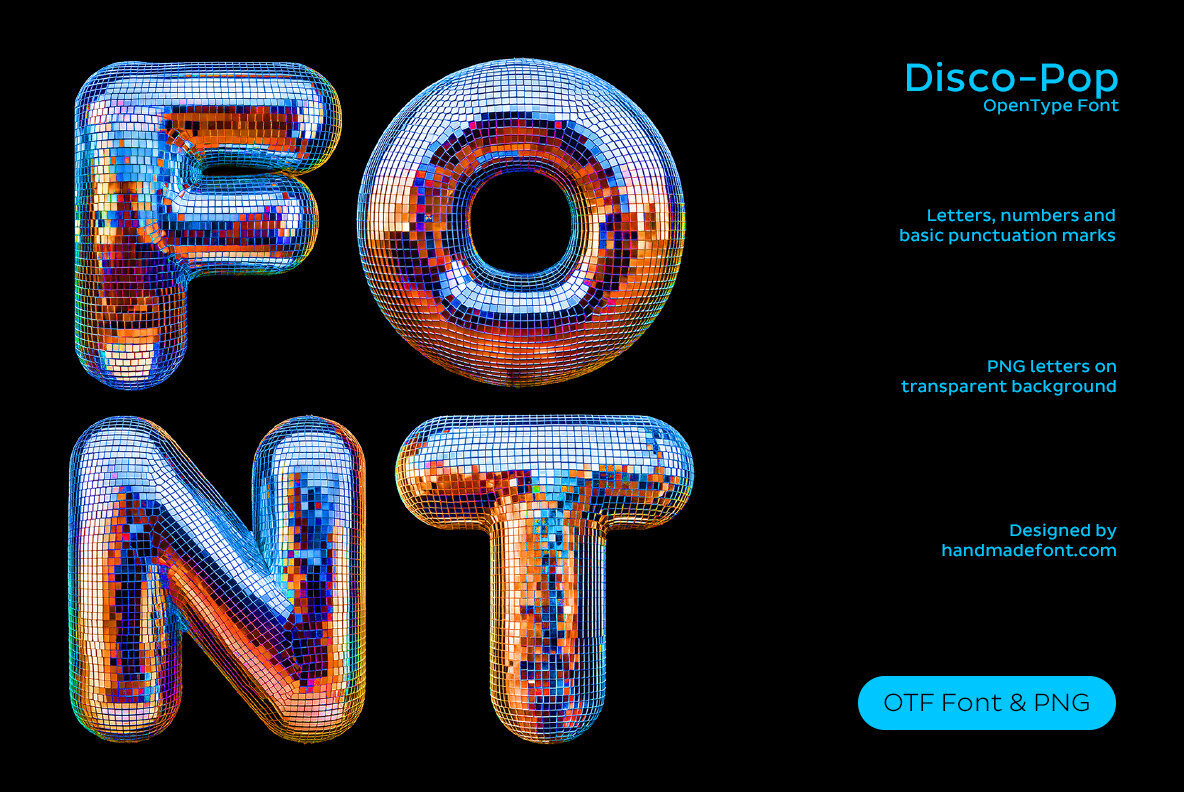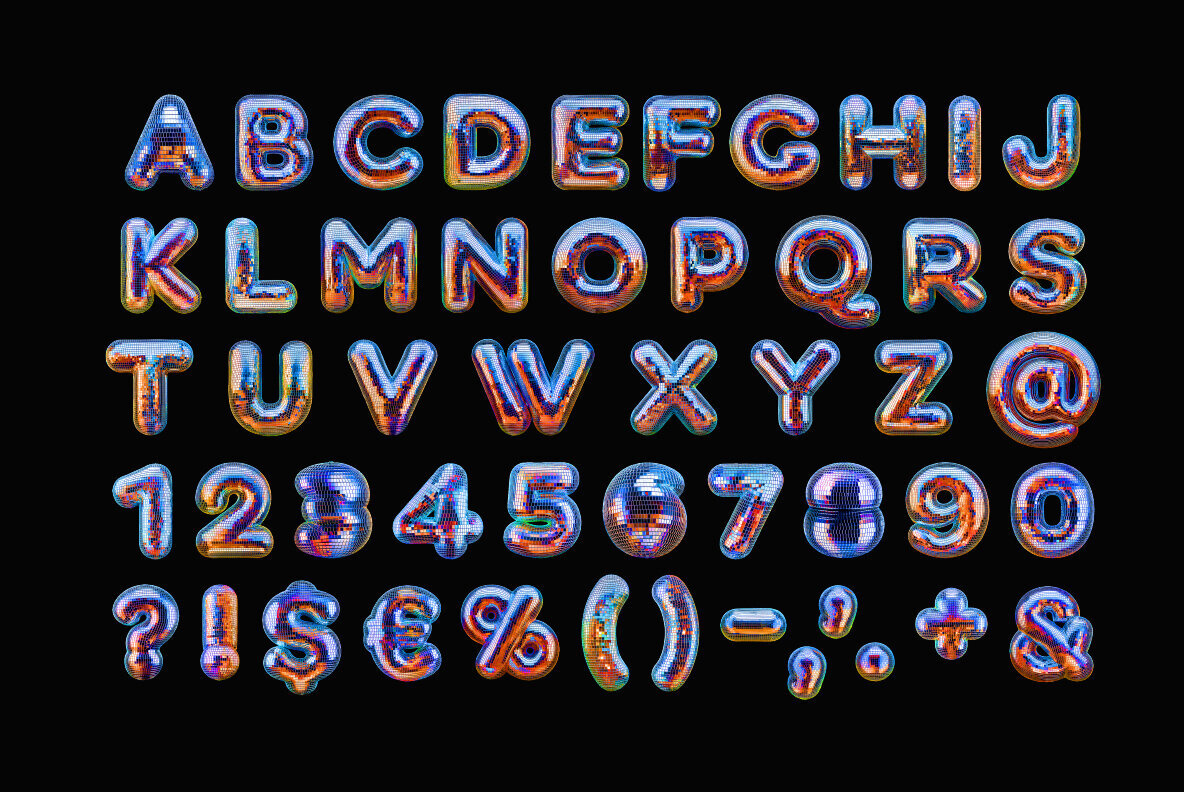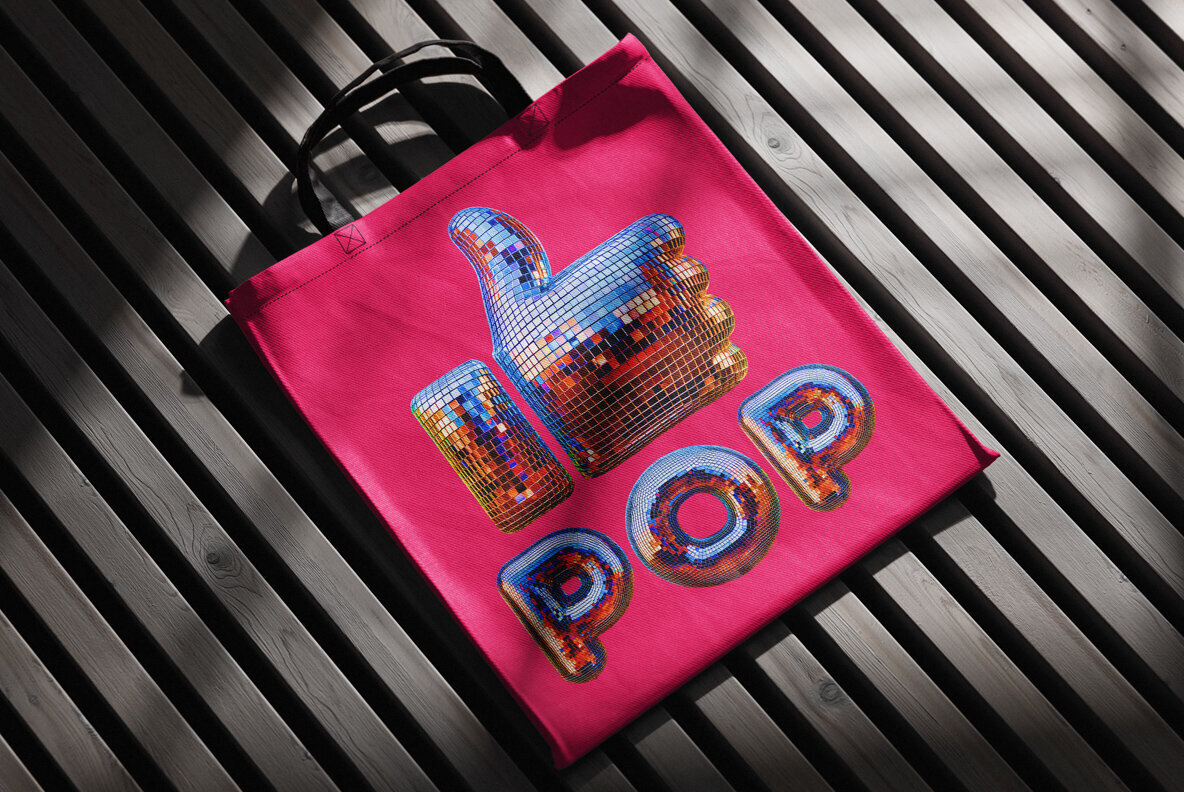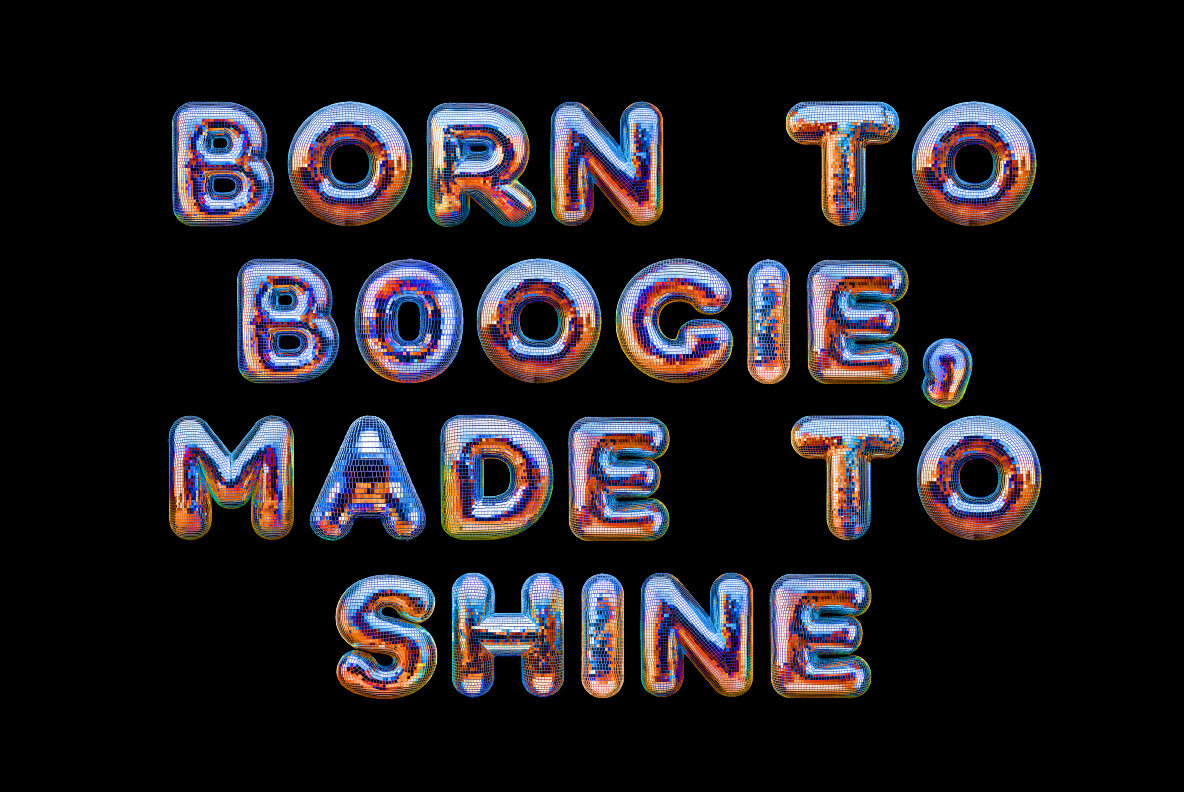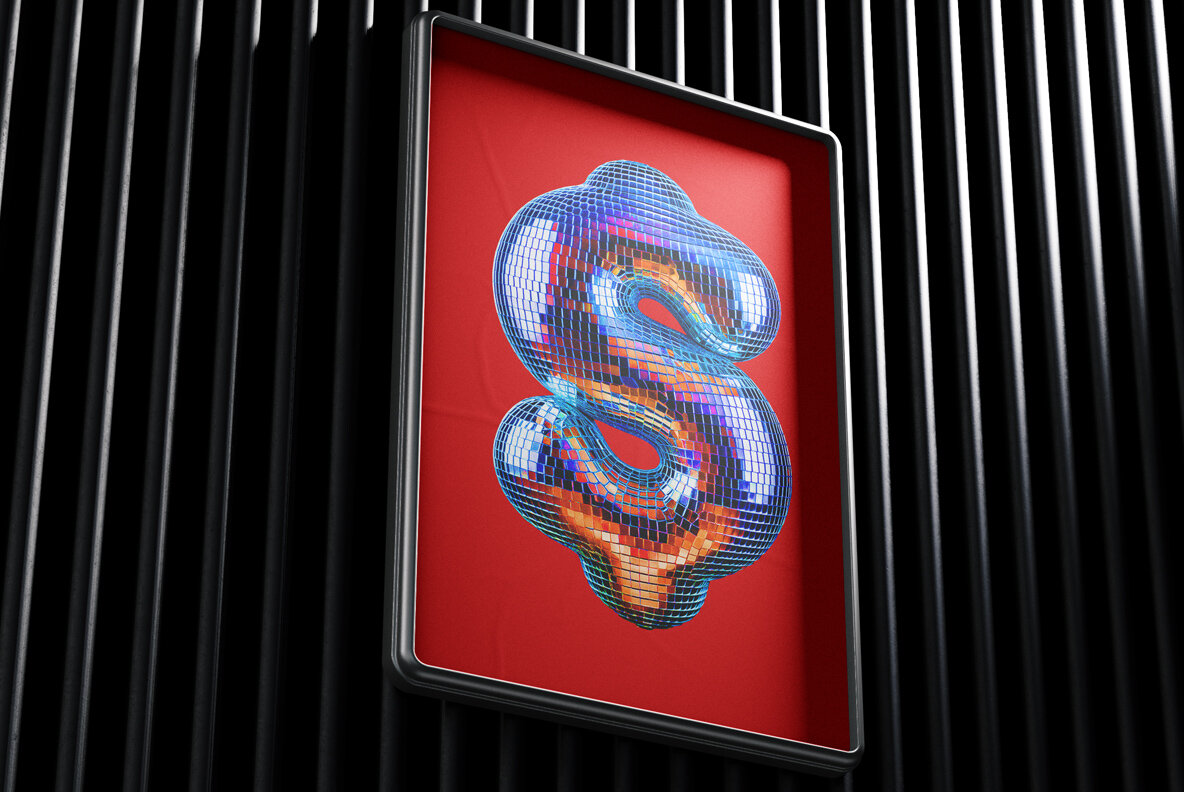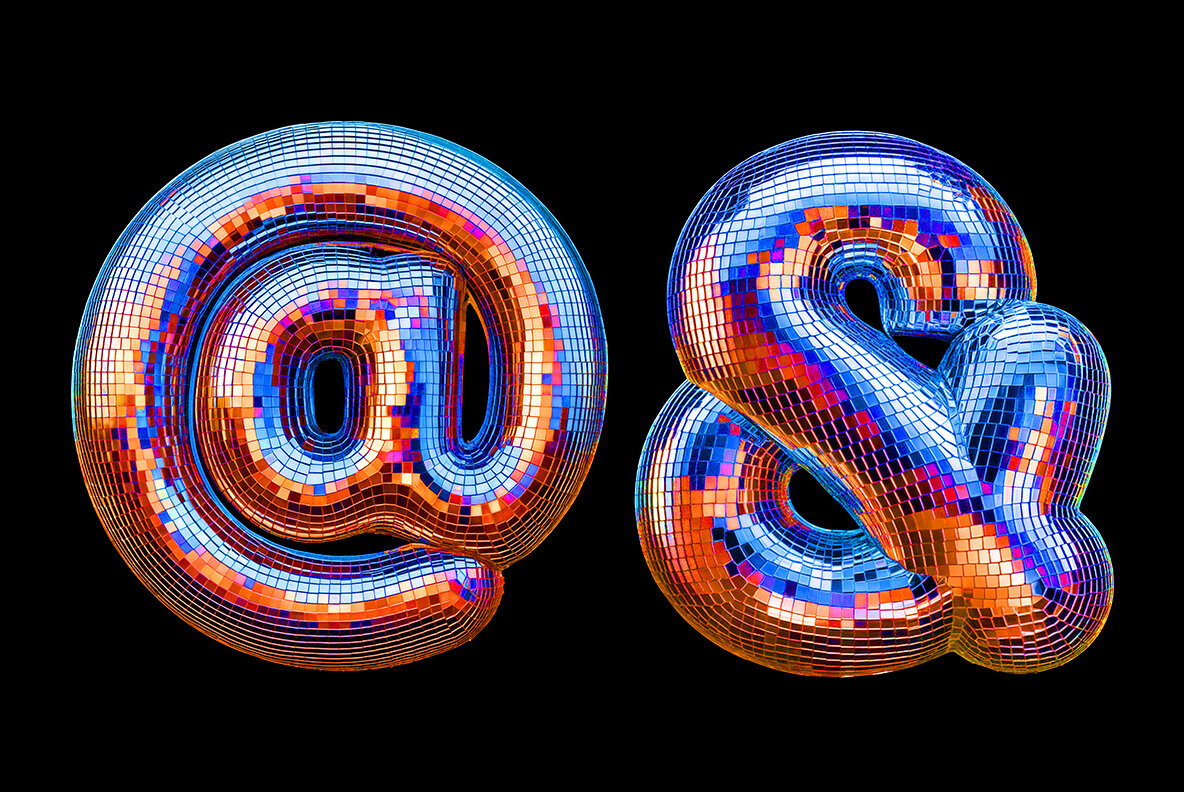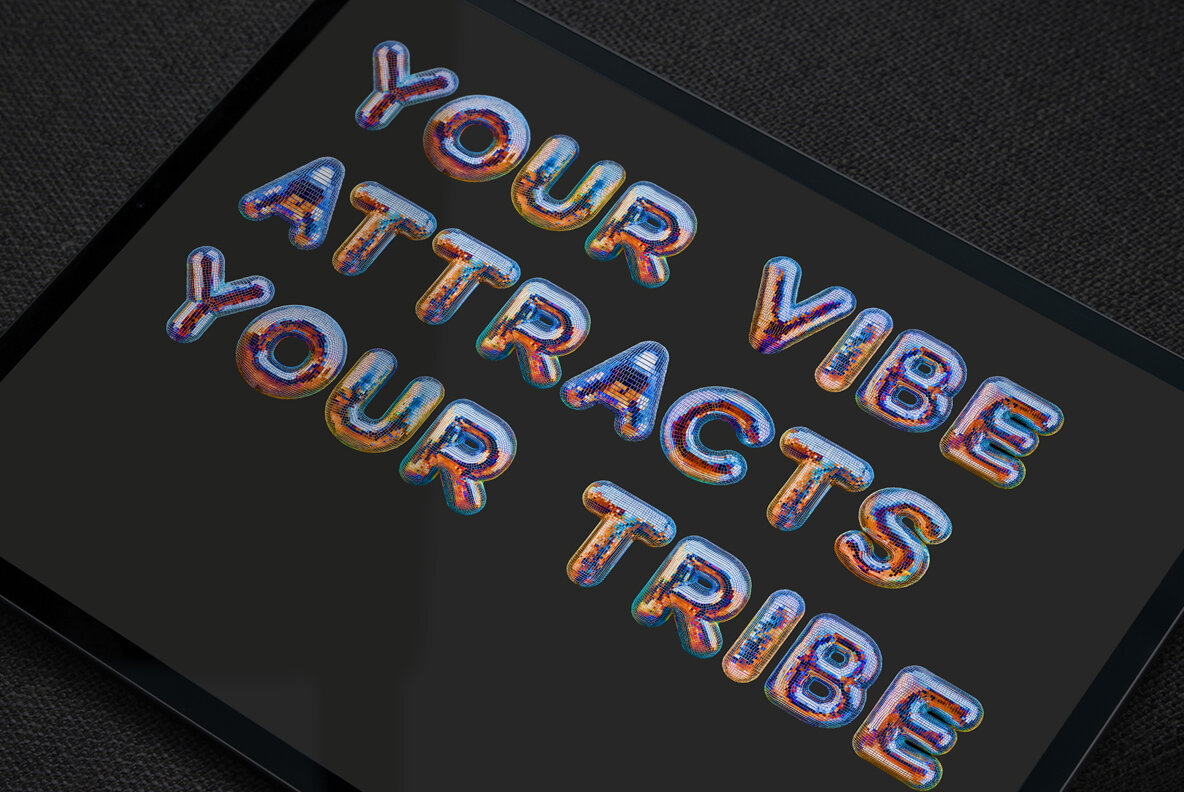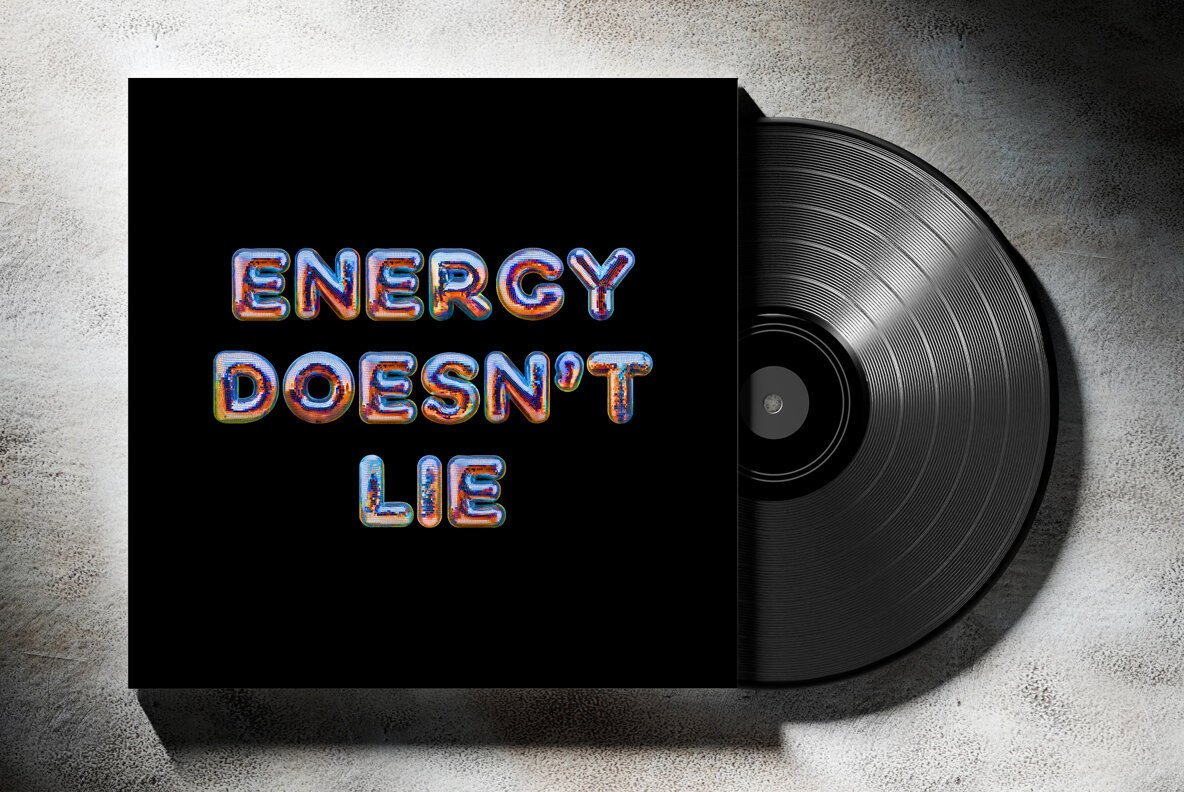
Step into the vibrant world of 1970s disco culture with the Disco Pop SVG font, a display typeface that embodies the glamour and excitement of the era. Inspired by the iconic disco ball, each letter design features reflective mosaic tiles that cast a mesmerizing dance of colors—blues, purples, and oranges—across its glossy, rounded surface. Whether you're designing party posters, branding dance events, or creating retro-themed graphics, this font infuses every project with rhythm, movement, and sparkle. Capture the fun and freedom of the dancefloor with the Disco Pop font's dynamic and energetic presence. Let your designs radiate with movement and style, exuding a celebration of late-night grooves.Disco Pop SVG Font